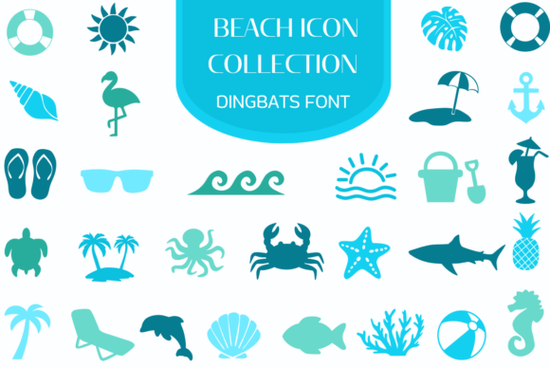
If you’ve ever tried to design a summer-themed flyer, beach wedding invitation, or tropical product label and found yourself searching endlessly for the right graphics, you know how time-consuming it can be. That’s where the Beach Icon Collection Font comes in handy. Instead of juggling dozens of PNGs or SVGs, this dingbat font packs over 100 coastal icons into a single, easy-to-use typeface perfect for designers, crafters, and small business owners who want consistent, scalable visuals without the hassle.
What makes this collection stand out is its clean, modern aesthetic. Each icon from flip-flops and sunglasses to dolphins and sailboats is crafted as a balanced silhouette that stays sharp at any size. Whether you’re adding a tiny seashell as a bullet point or using a palm tree as a hero graphic on a poster, the details remain crisp and recognizable. And because it’s a font, you can recolor, resize, and layer icons just like regular text.
Who actually uses a beach-themed dingbat font?
You might be surprised by how versatile these icons are:
- Print-on-demand sellers use them to create themed T-shirts, mugs, and tote bags for summer markets or vacation destinations.
- Event planners incorporate them into digital invites, signage, and programs for beach weddings, luau parties, or coastal retreats.
- Social media managers add quick visual flair to Instagram stories or Pinterest pins without leaving their design app.
- Crafters and DIYers love how easily the icons work with Cricut or Silhouette machines for vinyl decals, greeting cards, or scrapbook embellishments.
Because the icons are vector-based (thanks to being part of a font file), they scale infinitely no pixelation, no blurry edges. That’s a big win if you’re designing for both web and print.
How does it compare to other icon fonts?
Not all dingbat fonts are created equal. Some feel dated or overly detailed, making them hard to read at small sizes. The Beach Icon Collection avoids that by focusing on simplicity and clarity. If you enjoy this style but want more variety, you might also like the Doodle Elements Font, which offers hand-drawn accents that pair well with beachy designs for a relaxed, organic vibe. Or check out the Ocean Line Art Font if you prefer minimalist line-based marine motifs great for elegant coastal branding.
Practical tips for using beach icons effectively
Here’s how to get the most out of your new font without overdoing it:
- Less is more. One or two well-placed icons often communicate “beach” better than a cluttered border of ten.
- Match your color palette. Use sandy beige, ocean blue, or coral tones instead of default black for instant thematic cohesion.
- Combine with complementary fonts. Pair the icons with a clean sans-serif for modern projects or a breezy script for invitations.
- Use as dividers or bullets. A tiny starfish or wave makes a fun alternative to standard list markers in brochures or emails.
Remember: these icons aren’t just for literal beach scenes. Think metaphorically a sun icon can represent energy, a seashell can suggest discovery, and an anchor can symbolize stability. That opens up uses beyond tourism, like wellness brands, travel blogs, or even educational materials about marine life.